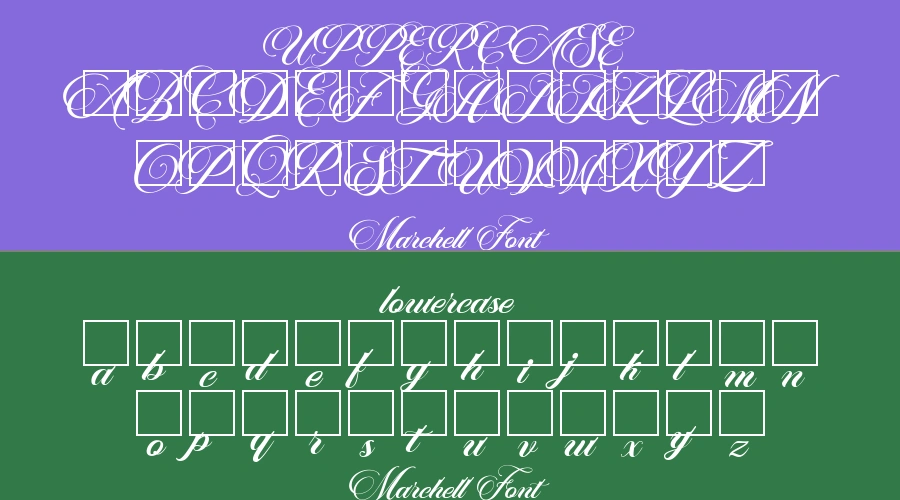
About Marchell Font
Marchell Font stands out for its distinctive combination of expressive energy and visual comfort. Ideal for exhibition design, it provides the originality and professional authority that professional projects demand. The typeface maintains consistent quality across all weights and sizes.
Key features include refined balanced weights and practical automatic fractions, enhancing typographic expression. In research articles applications, Marchell Font demonstrates exceptional compatibility. The counter aperture and market positioning contribute to its distinctive character and professional appeal.